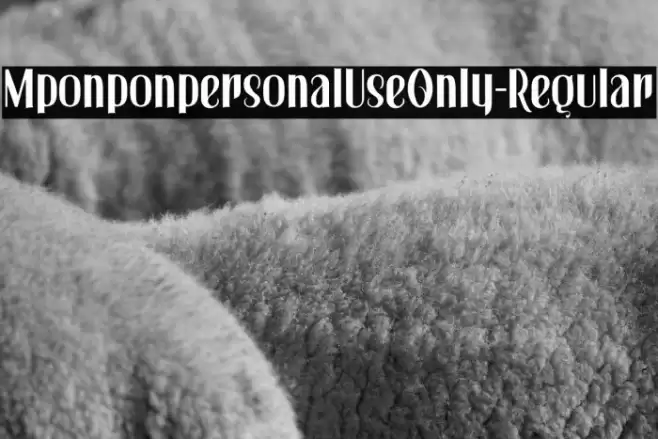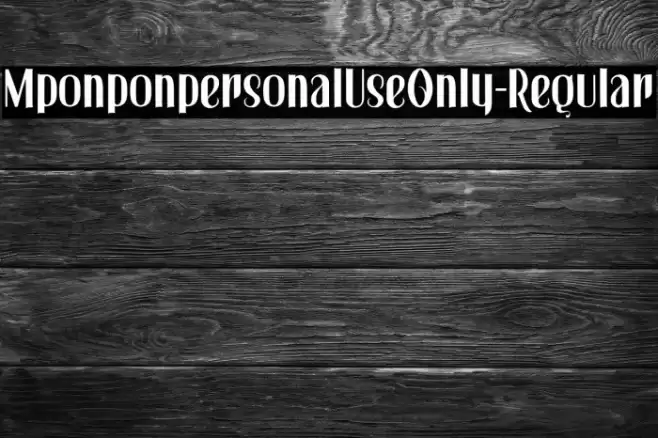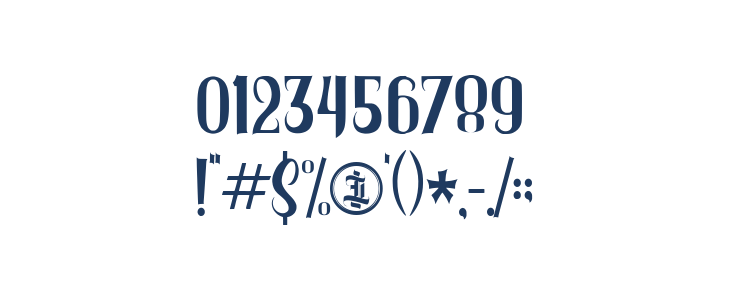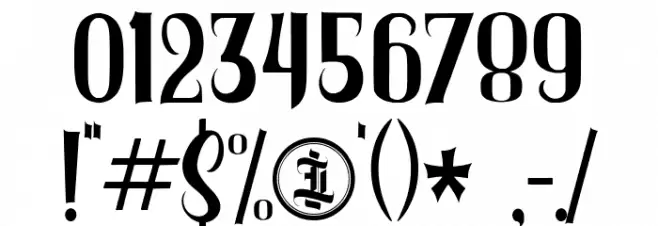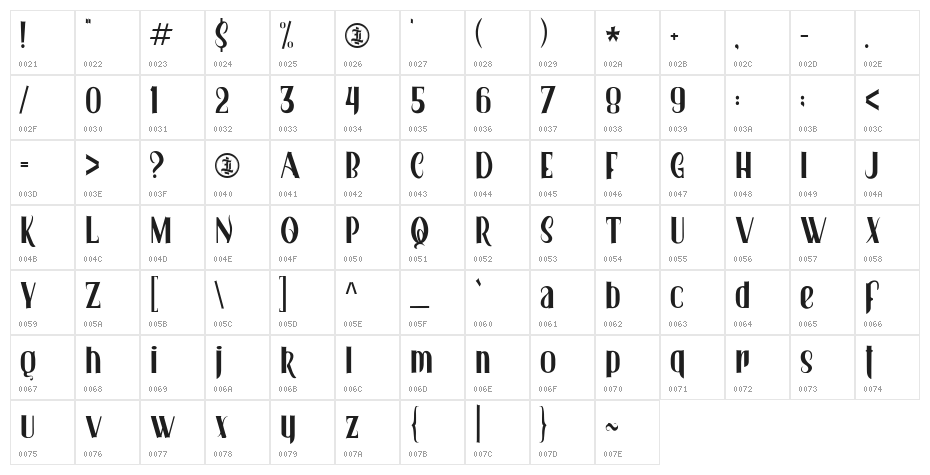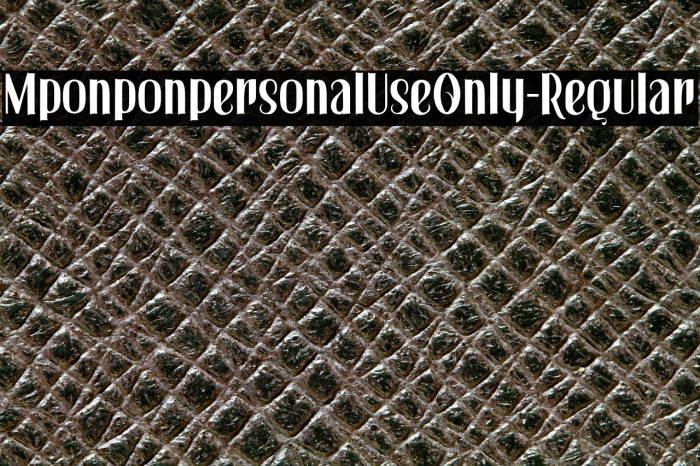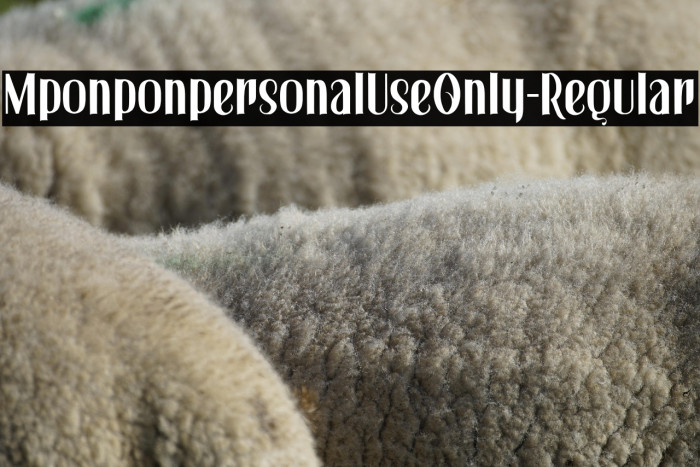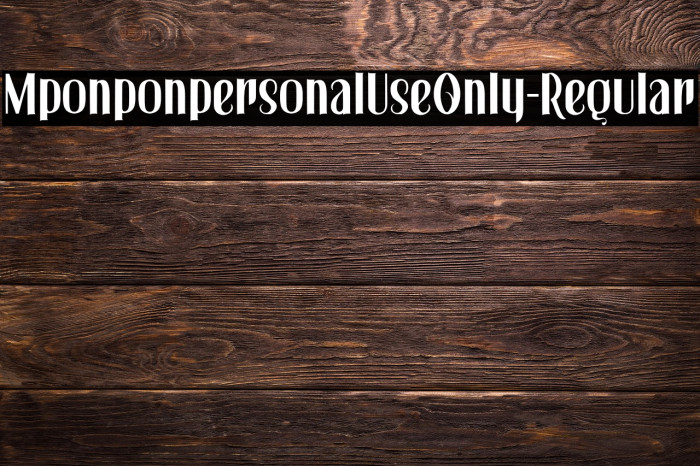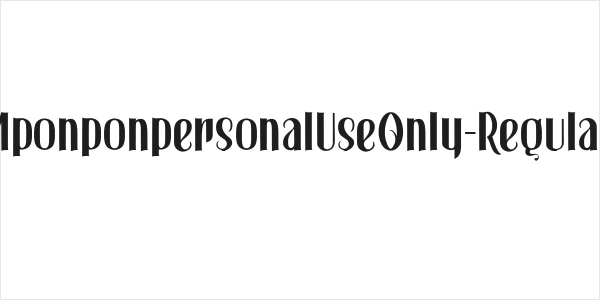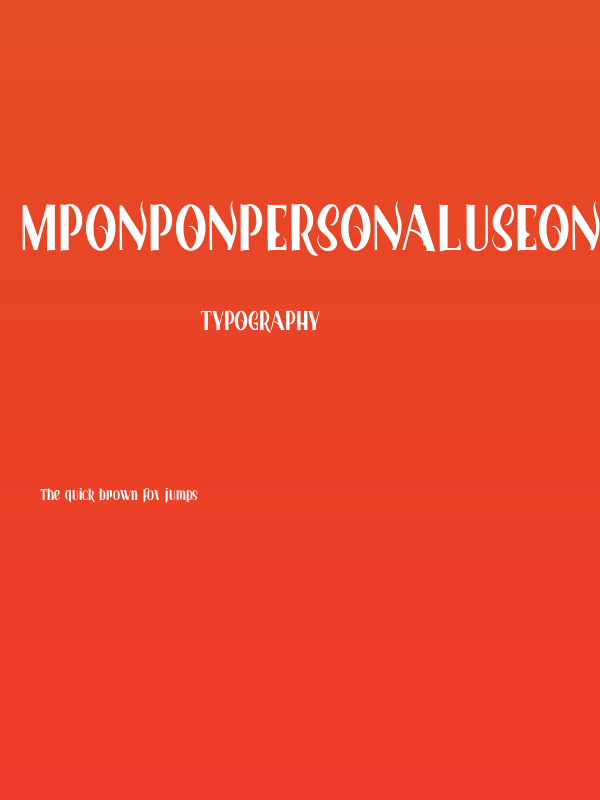
MponponpersonalUseOnly-Regular Font
MponponpersonalUseOnly-Regular Description
This font features a bold and dramatic style with high contrast between thick and thin strokes, giving it a distinctive and eye-catching appearance. The uppercase letters are tall and narrow, with unique serifs and flourishes that add a touch of elegance and sophistication. The lowercase letters maintain the same boldness, with some characters having playful, curved tails. The numerals are consistent with the overall style, offering a cohesive look. Special characters are creatively designed, adding to the font's decorative appeal.
A bold, high-contrast decorative font with unique serifs and flourishes from Regular fonts.
- Proposed Projects: Ideal for headlines, posters, branding, and any design project that requires a striking and artistic touch.